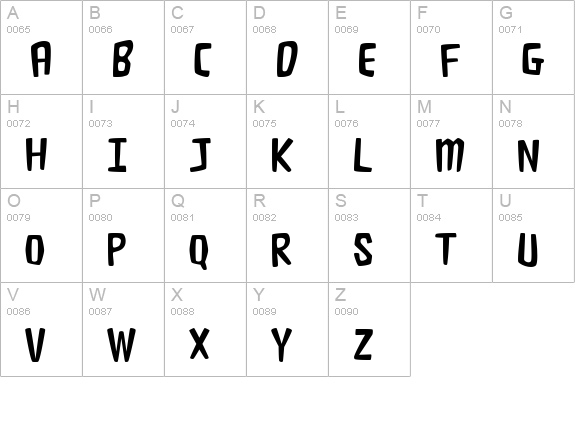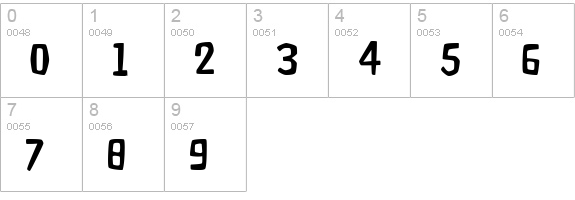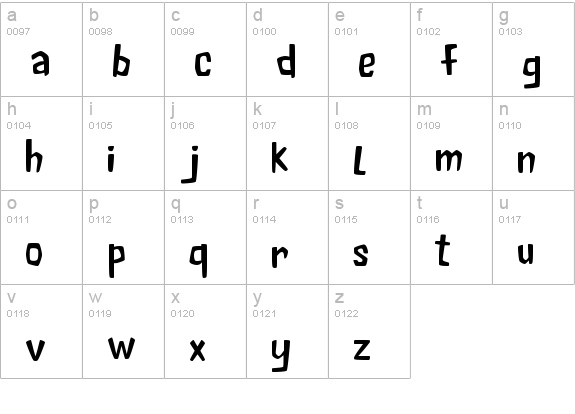
Fluffy Slacks BTN Lt Font Details
Fluffy Slacks BTN Lt font is a charming and whimsical typeface that exudes a playful and lighthearted vibe. Its soft, rounded edges and unique design make it perfect for adding a touch of personality to your projects. This delightful font is ideal for use in children's books, greeting cards, posters, and more. The best part? Fluffy Slacks BTN Lt font is free to download at FontsMarket.com, where you can easily access this delightful typeface and enhance your designs with its quirky charm. Don't miss out on the opportunity to add a fun and cheerful flair to your creations with this freely available font.